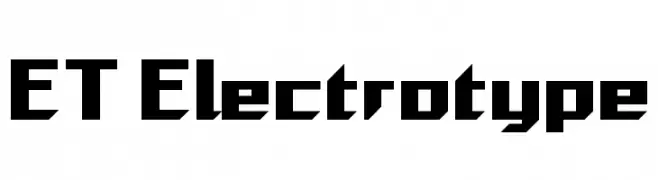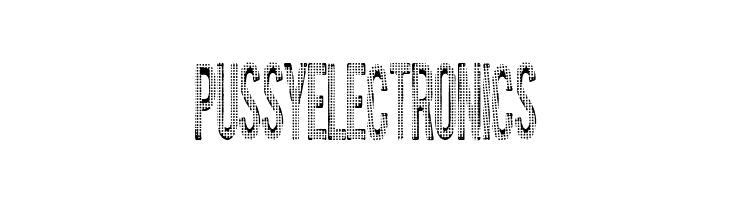
( Electropithecus )
A bold, geometric font with a futuristic and angular design.
( Lauren Harrison - gumroad.com/lrnrh )
A bold, angular font with electrifying motifs and a modern, edgy style.
( Fonts by Graphics Bam )
A bold, electrified font with jagged edges and high contrast.
A sleek, futuristic italic font with geometric lines and a dynamic style.
A futuristic, geometric font with consistent stroke width and angular design.
A modern, geometric font with clean lines and a futuristic feel.
A digital-style font resembling a 16-segment electronic display.
A bold, geometric font with a modern, tech-inspired design.
A bold, geometric font with a futuristic and industrial design.